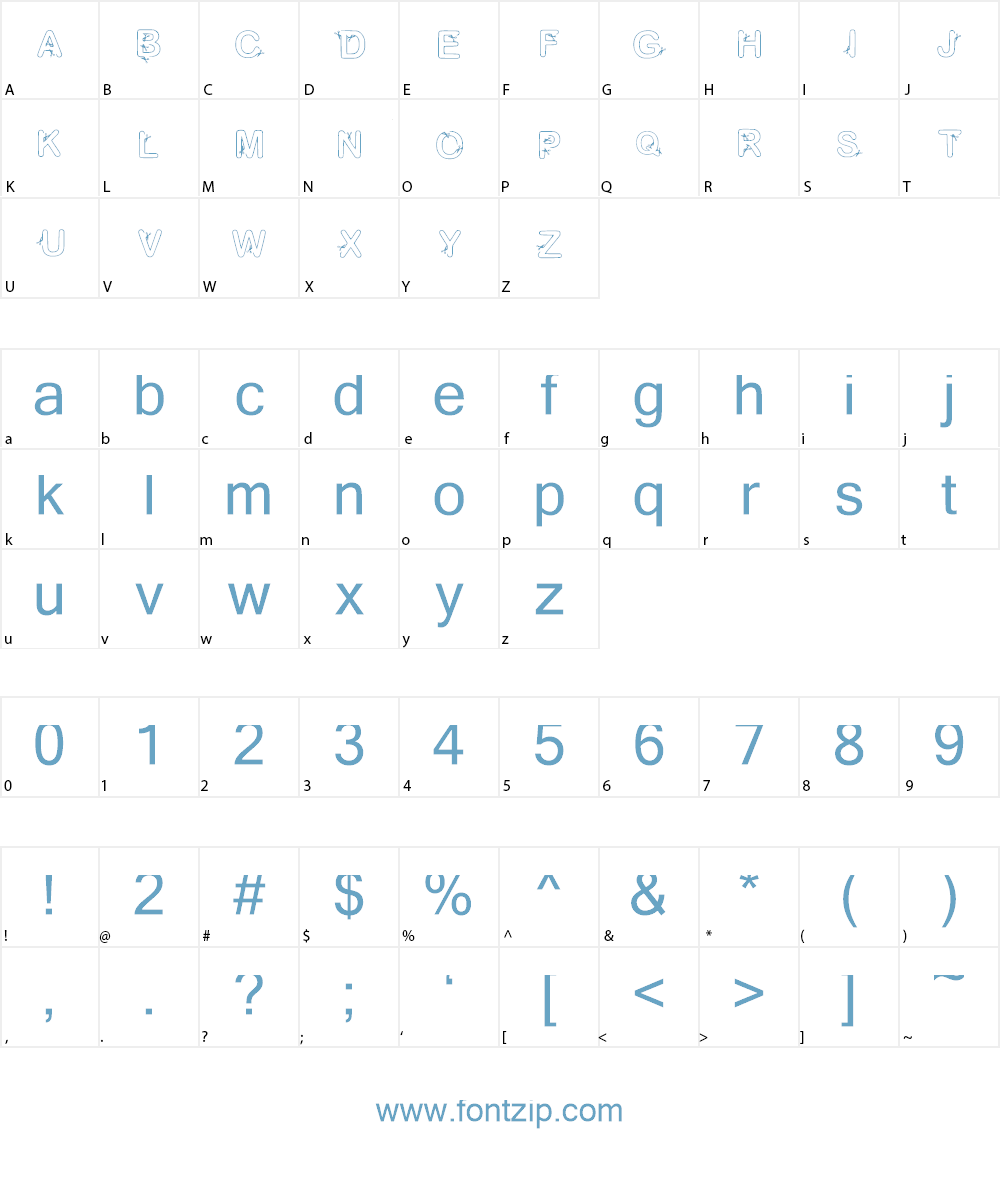
Just made a craft or DIY project that needs some information to cut or just want to add some craft feeling fun to your lovely project? Need to know where to cut? Now you have a full font set to choose from. Rounded, fun graphic styled font